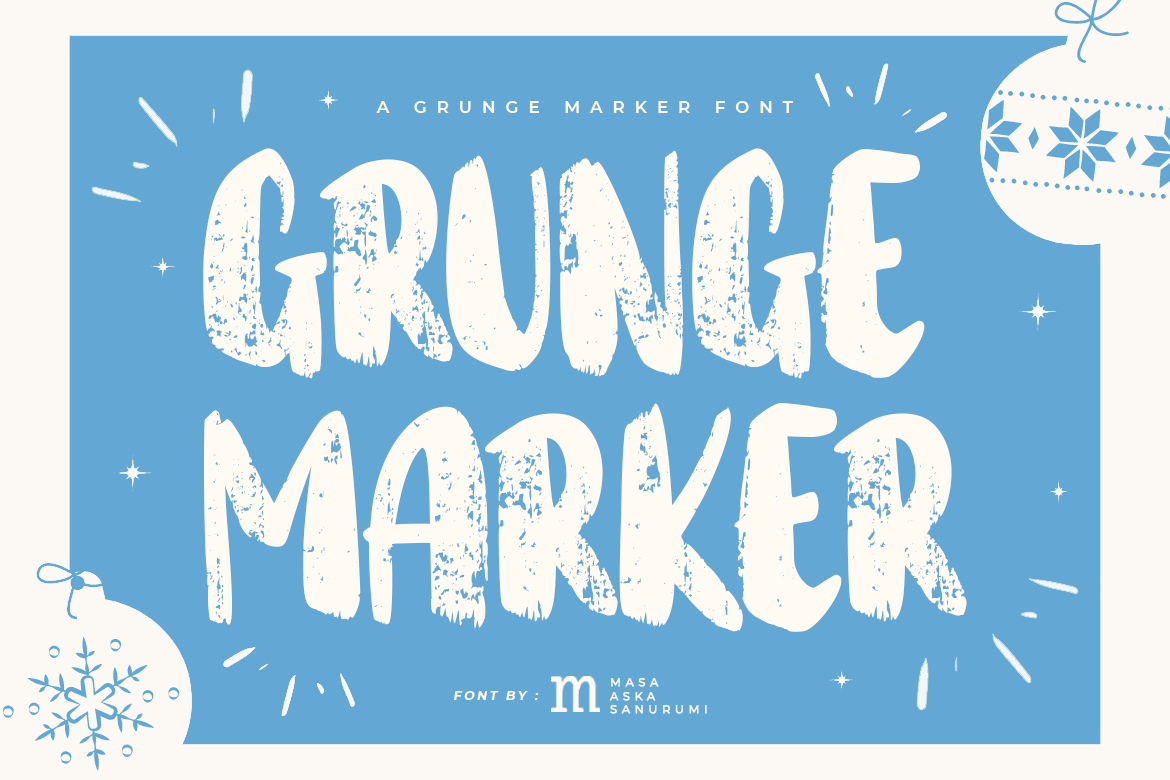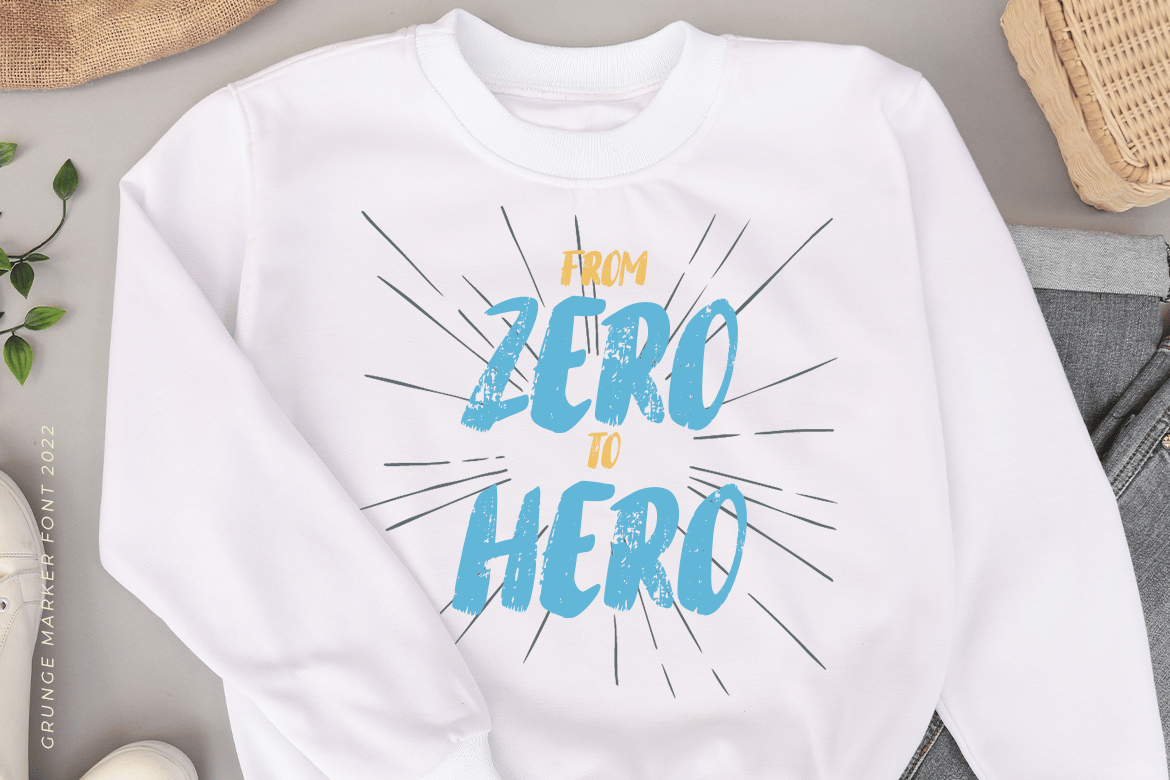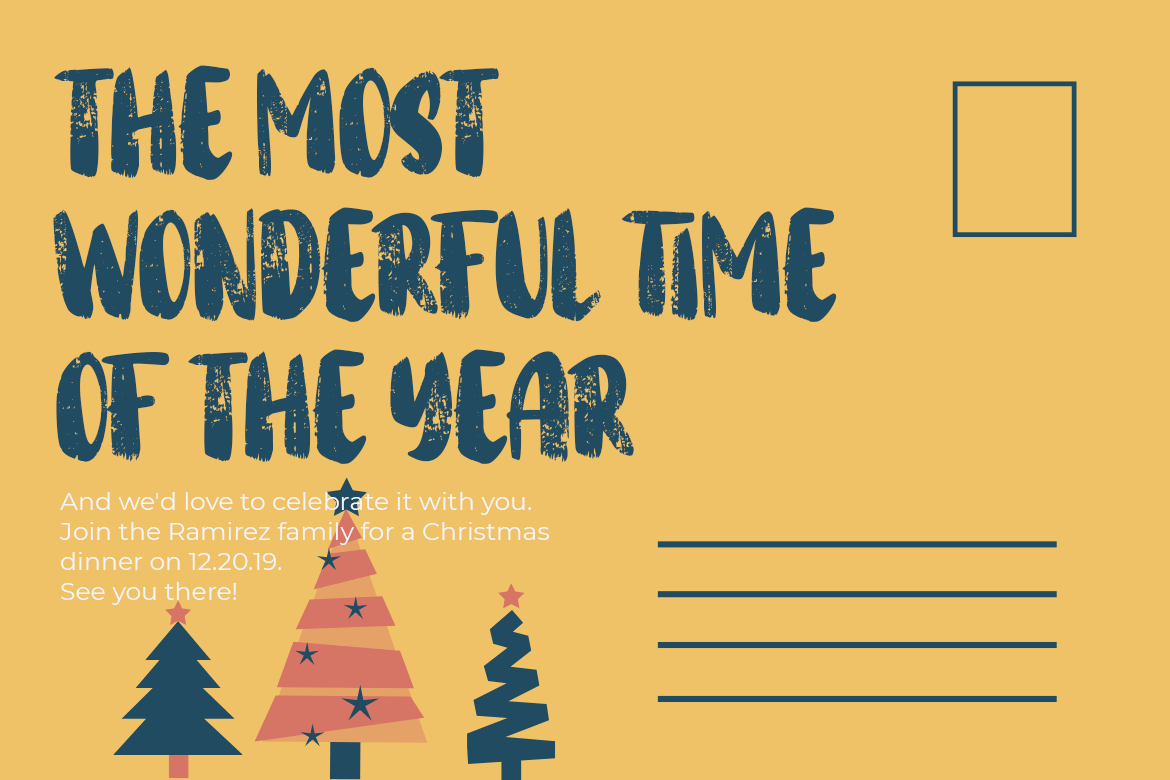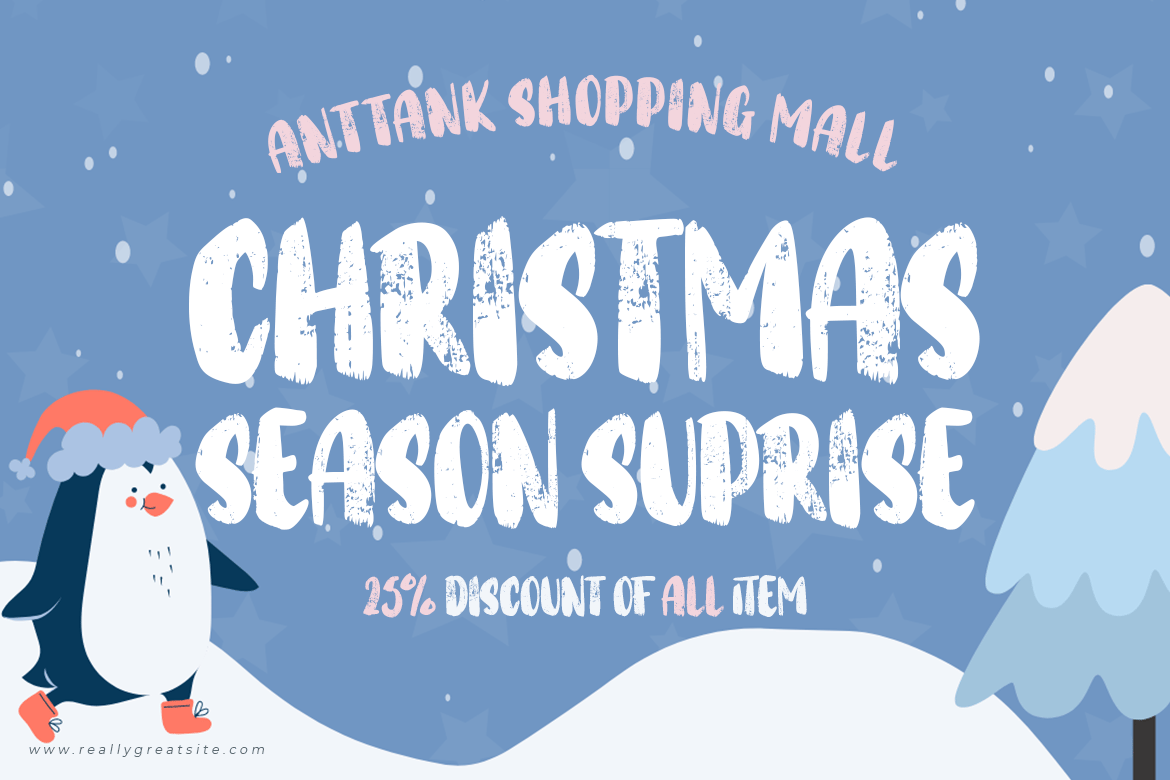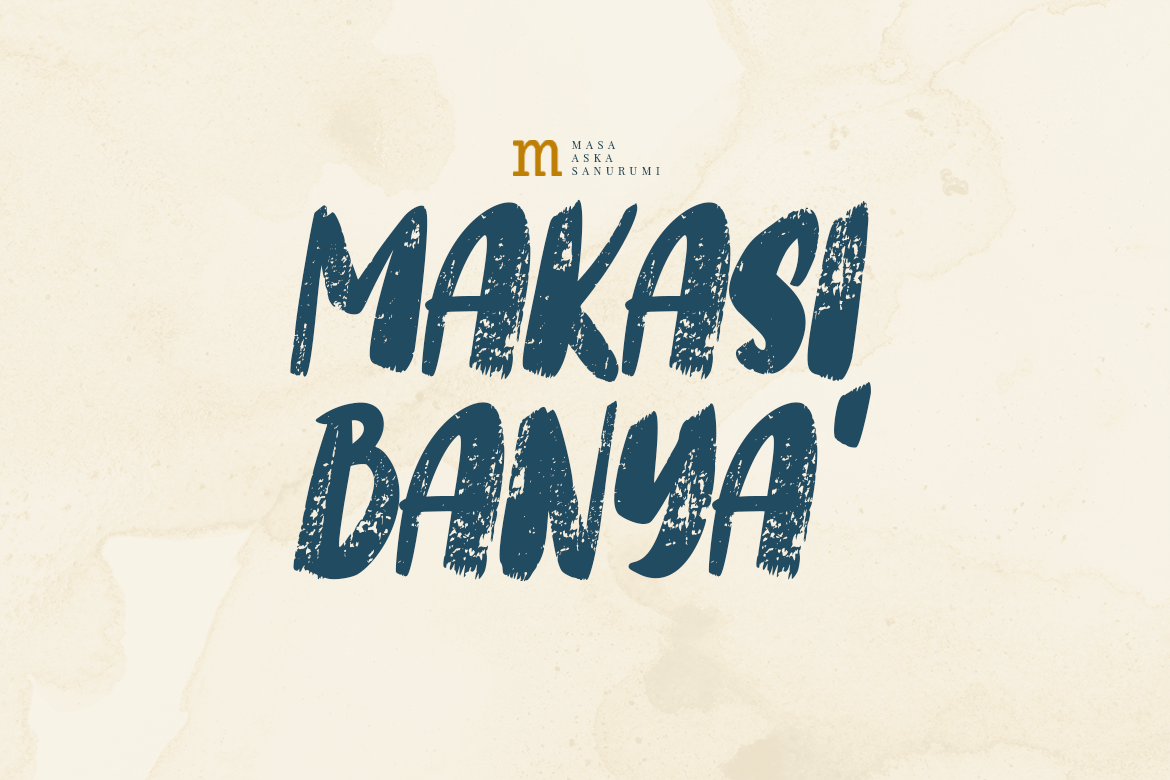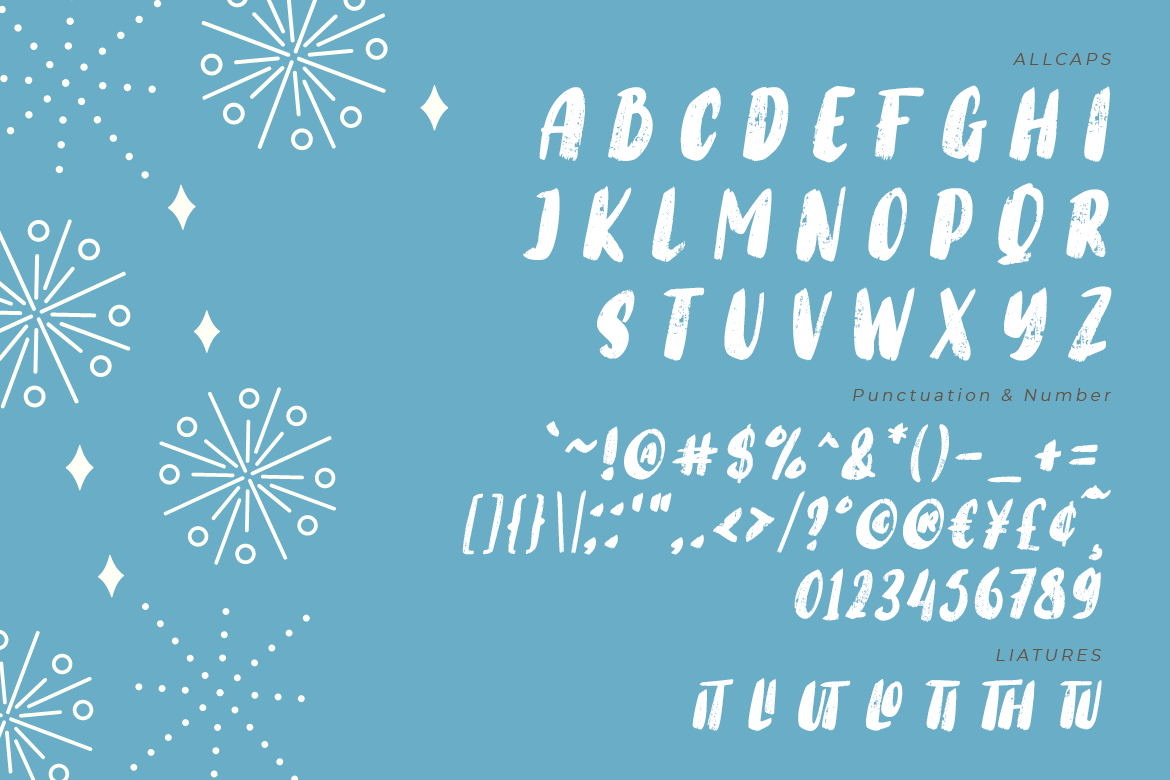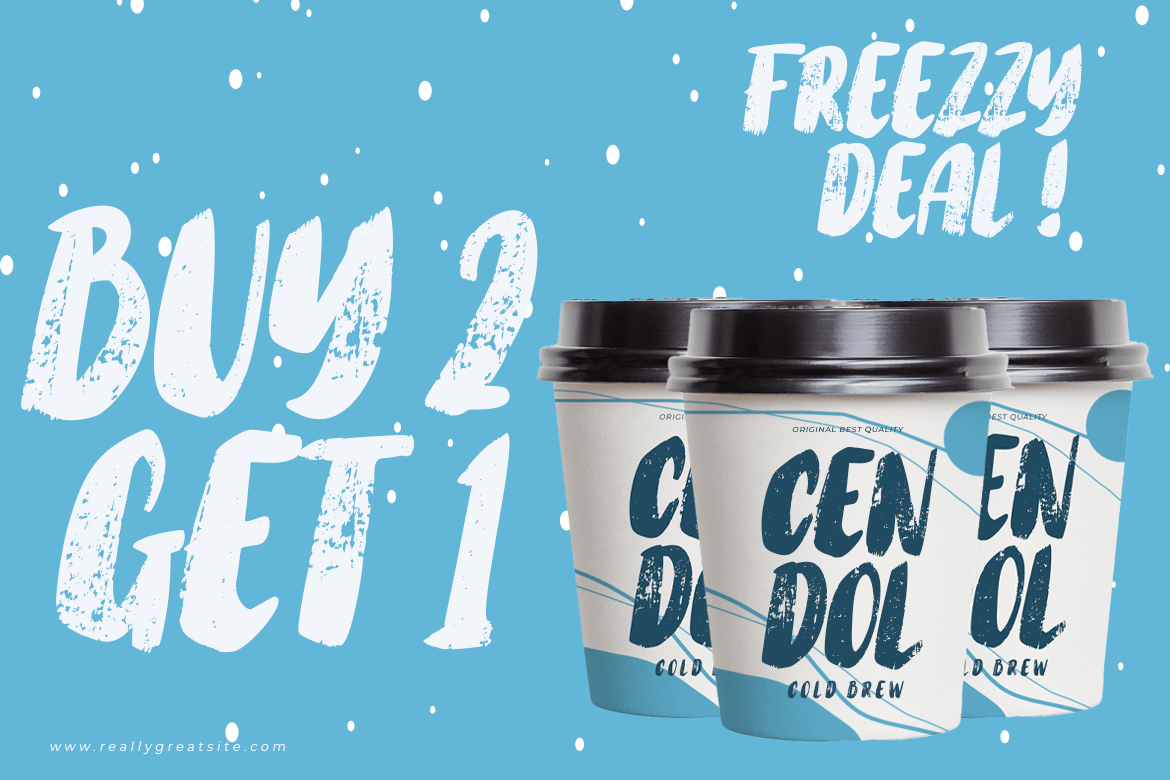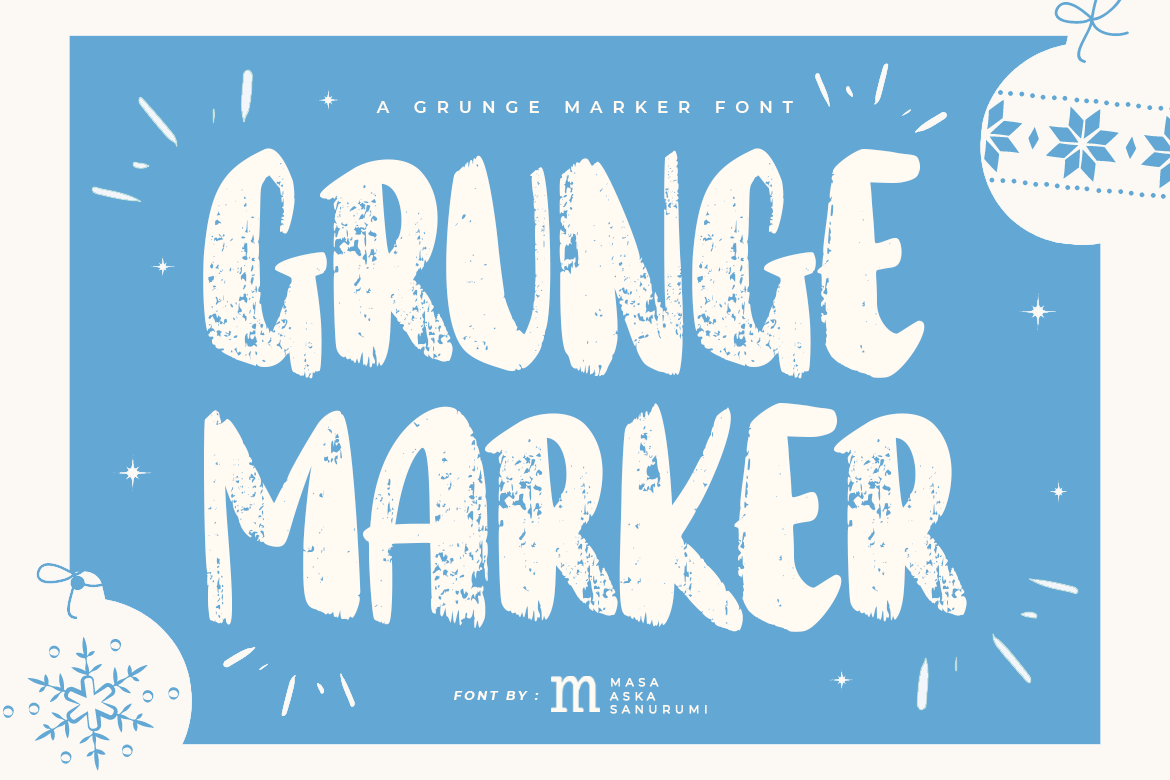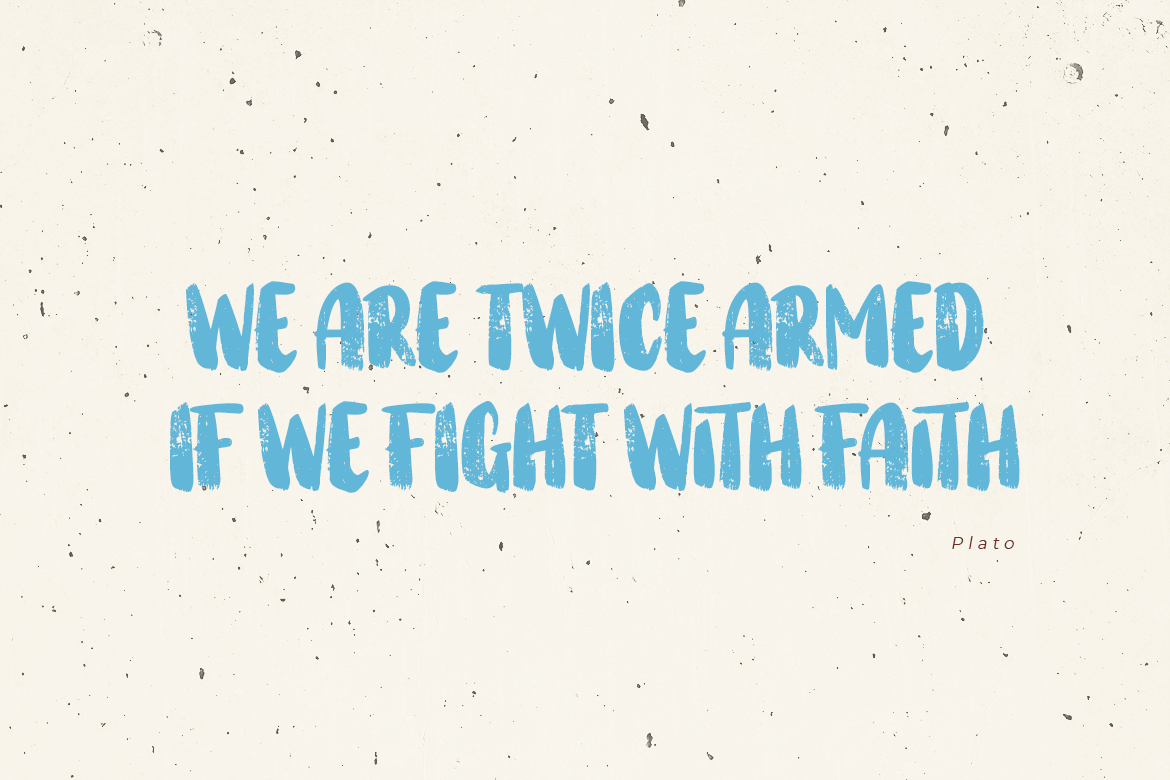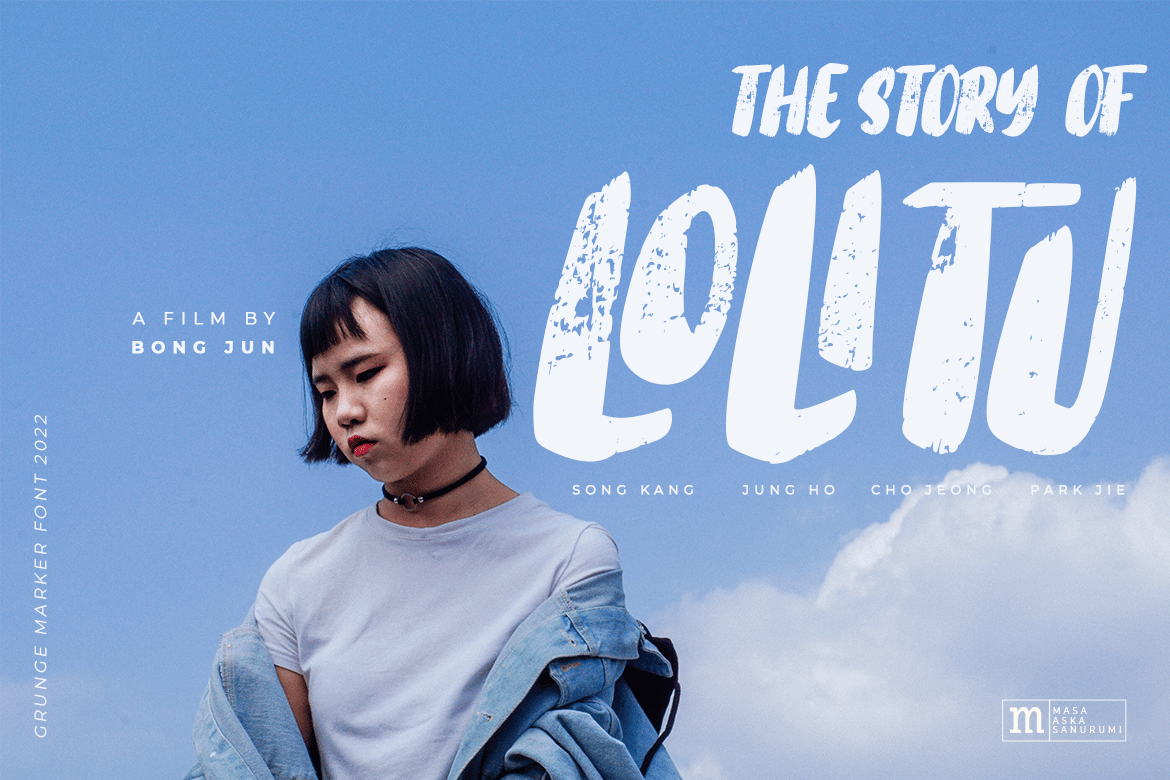
Grunge Marker | A Grunge Marker Font
Introducing, Grunge Marker is a grunge marker font suitable for your design project needs, such as; christmas theme, social media posts, quotes, overlays on images, posters, print needs, website banners, and more.
- A set of uppercase and lowercase glyphs
- Number, symbol, and punctuation